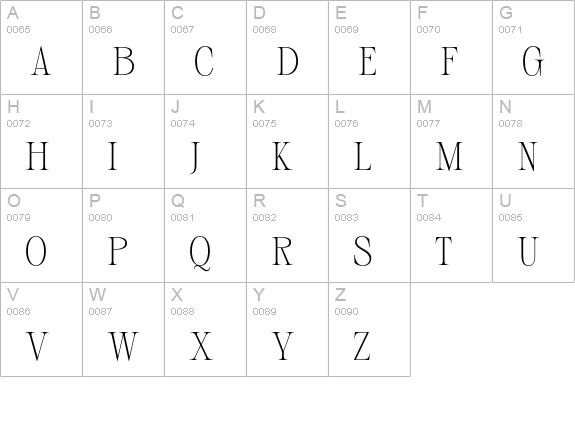
Risley Font Details
Risley font is a unique and elegant typeface that exudes sophistication and style. With its sleek lines and modern design, Risley is perfect for adding a touch of class to any project. The font features a harmonious balance of sharp angles and smooth curves, creating a visually appealing look that is sure to catch the eye.